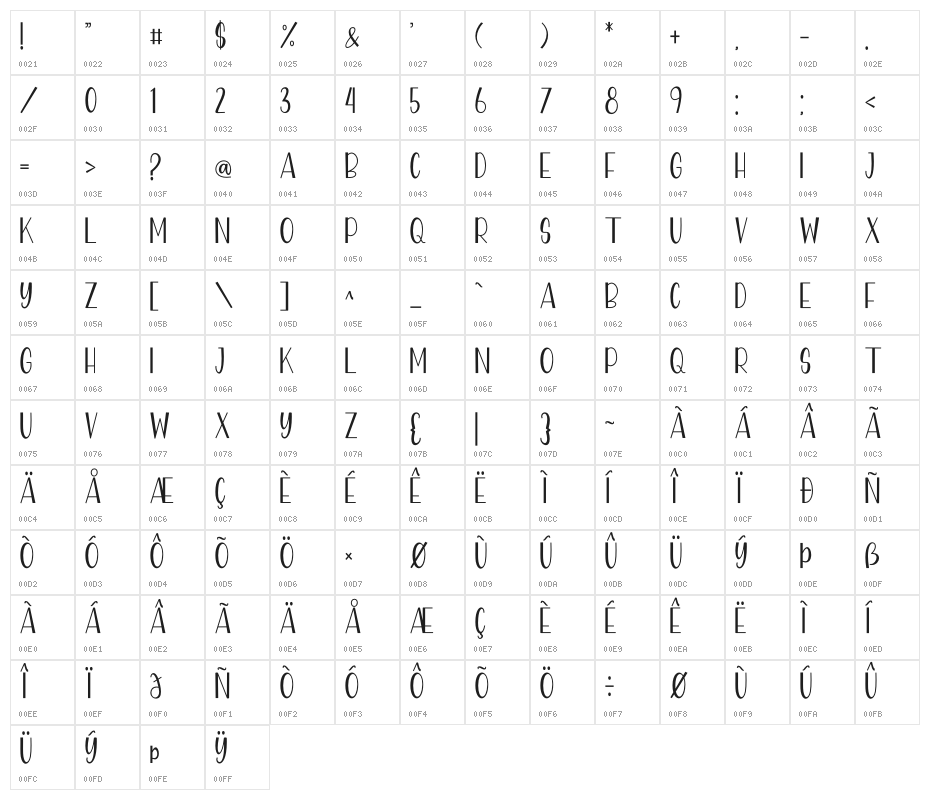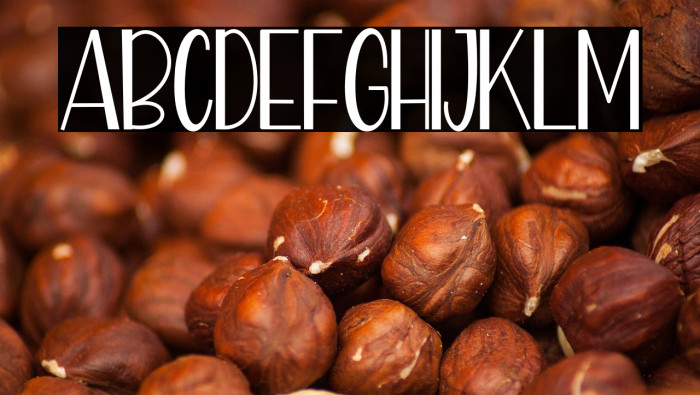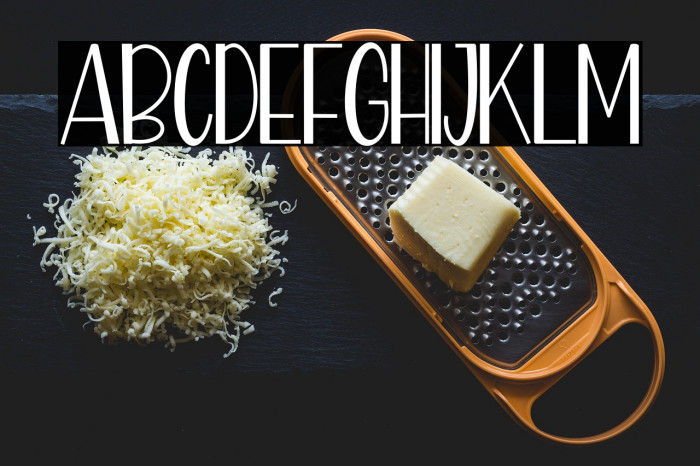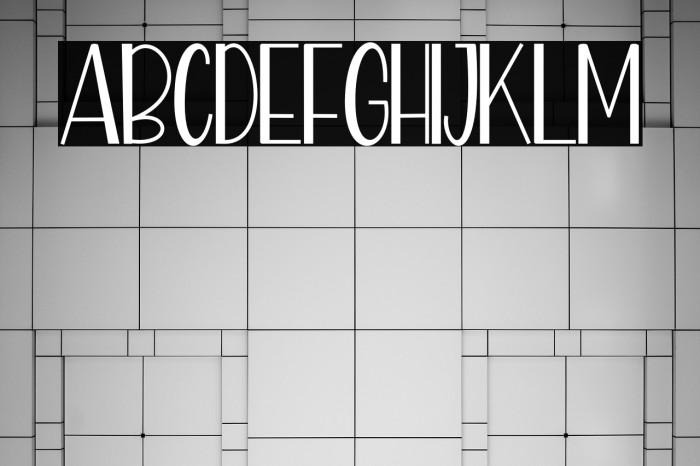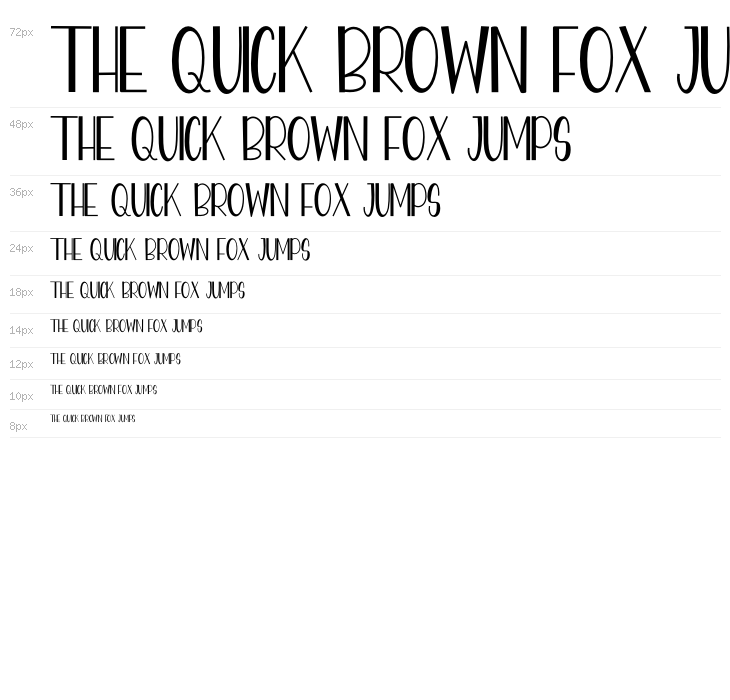
Kamadatu Font
This font features a unique and artistic design with elongated, narrow characters that give it a distinct and modern appearance. The uppercase letters are tall and slender, with some characters exhibiting playful curves and angles, adding a touch of creativity. The lowercase letters maintain the same narrow structure, ensuring consistency throughout the typeface. Numbers are similarly styled, with a sleek and contemporary look. Special characters are included, maintaining the overall aesthetic. This font's design is ideal for projects that require a modern and artistic touch.
A modern, narrow font with artistic curves and angles.
- Font: Kamadatu
- Proposed Projects: Ideal for branding, posters, and creative design projects that require a modern and artistic flair.